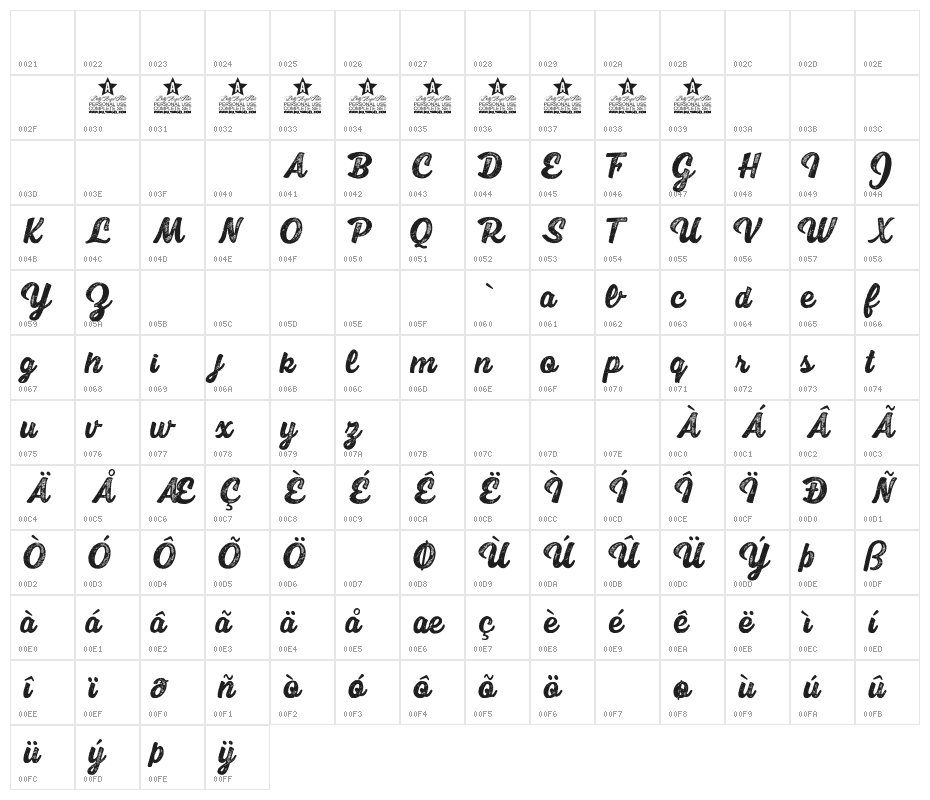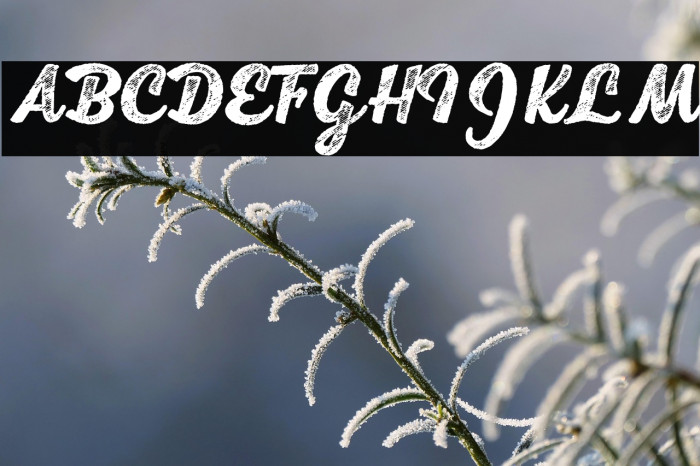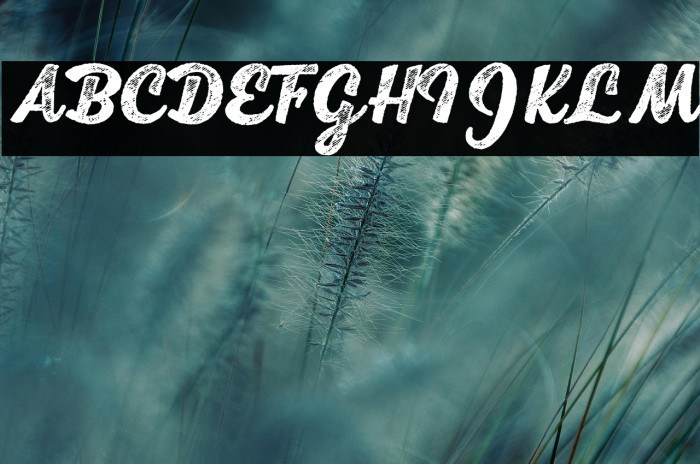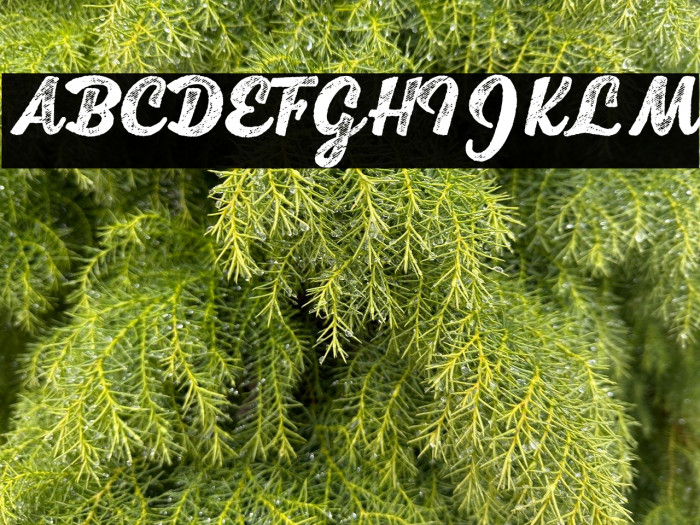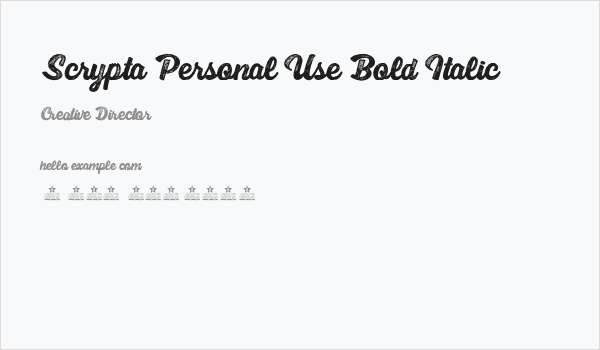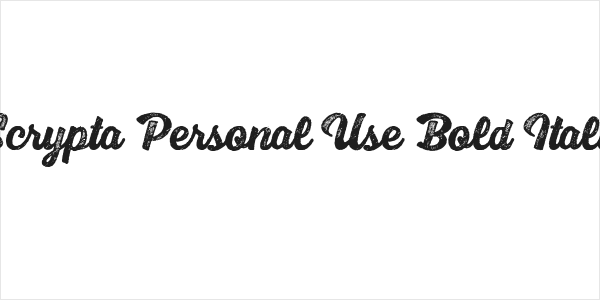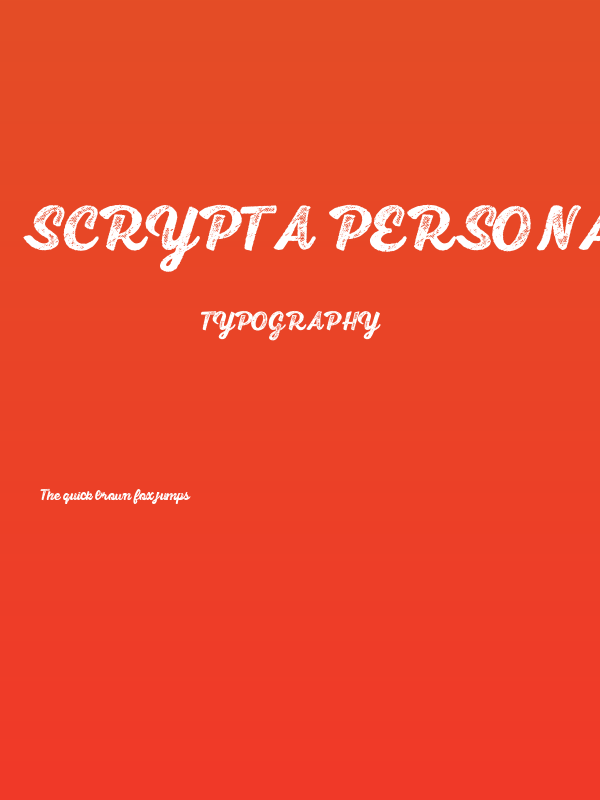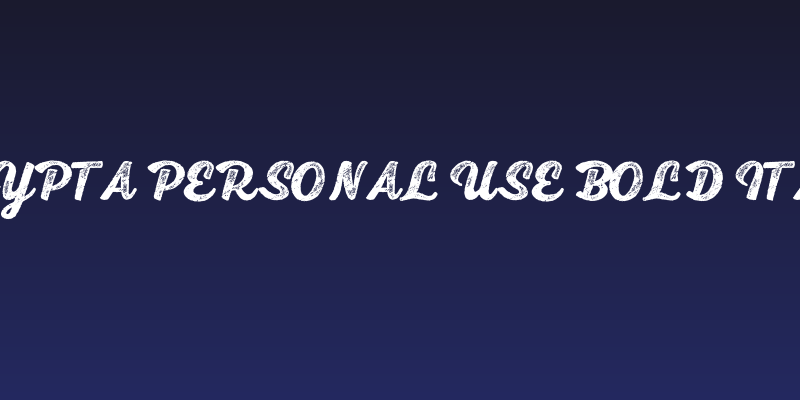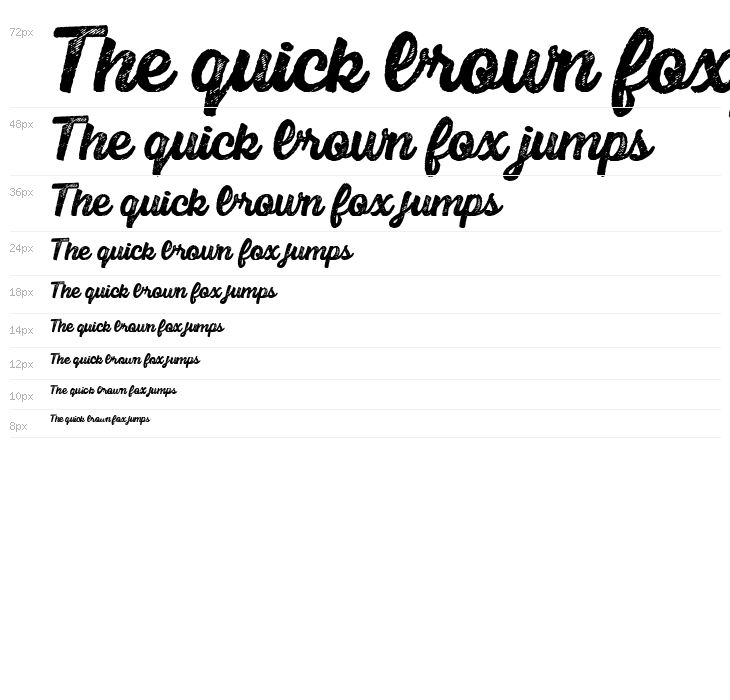
Scrypta Personal Use Bold Italic Font
Scrypta Personal Use Bold Italic Description
This font features a bold and italicized script style with a textured, distressed appearance. The letters are connected, giving it a flowing, cursive look that is both dynamic and expressive. The uppercase letters are slightly larger and more pronounced, while the lowercase letters maintain a consistent flow. The texture adds a vintage or grunge element, making it stand out in designs that require a touch of personality and flair. The numbers and special characters are designed to match the overall style, ensuring consistency across all text elements.
| Overall Style | Vintage, Decorative |
| Proposed Projects | Ideal for branding, logos, posters, and creative projects that require a bold, expressive touch. |